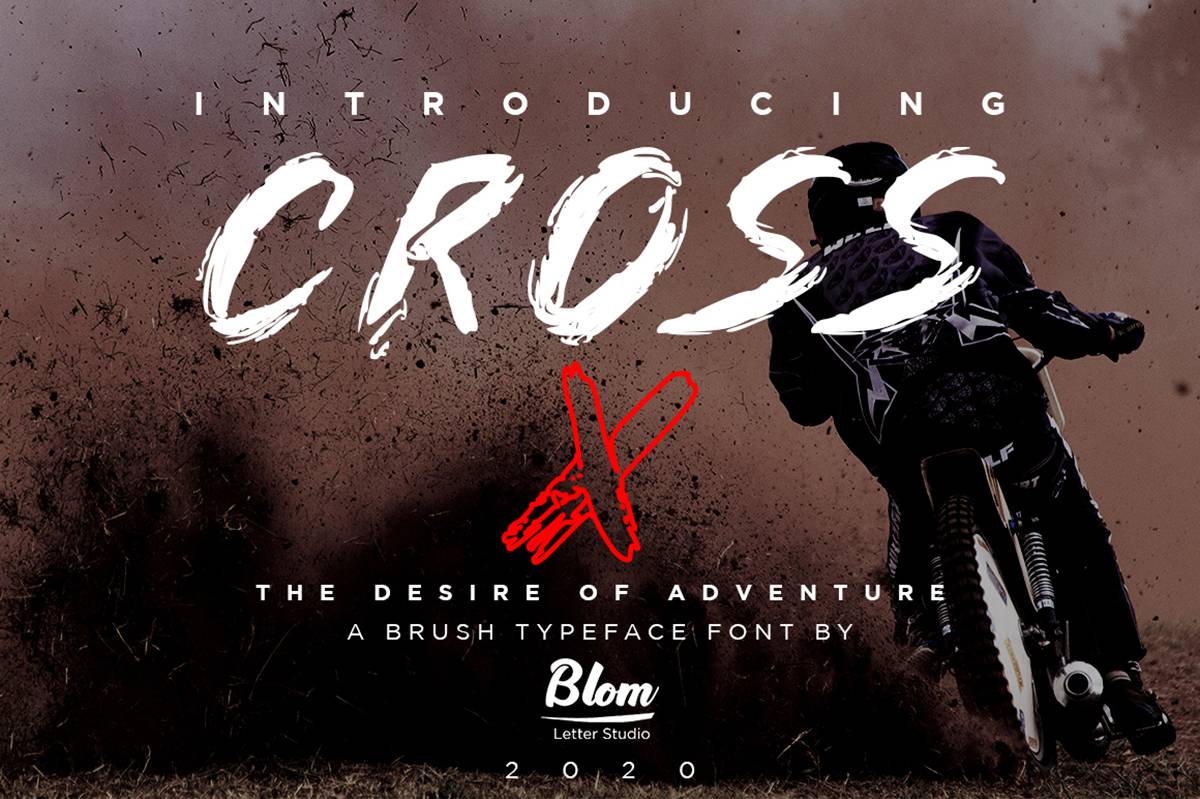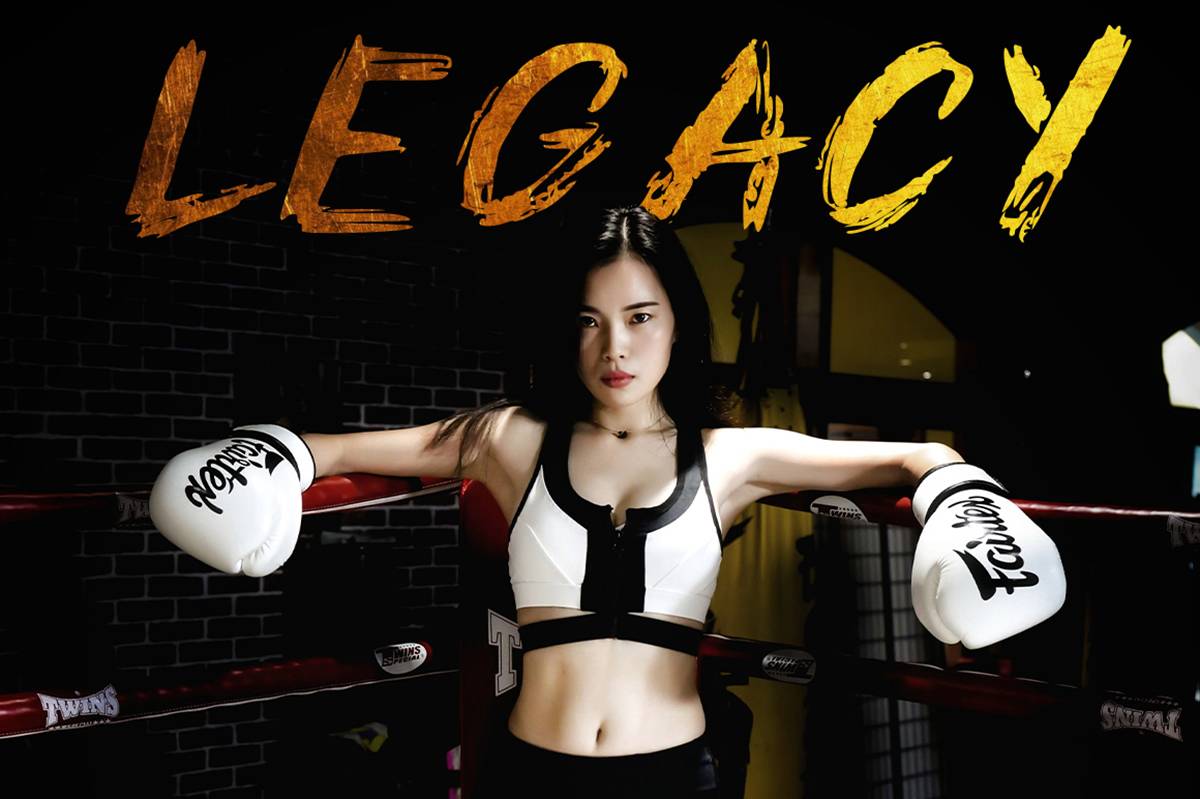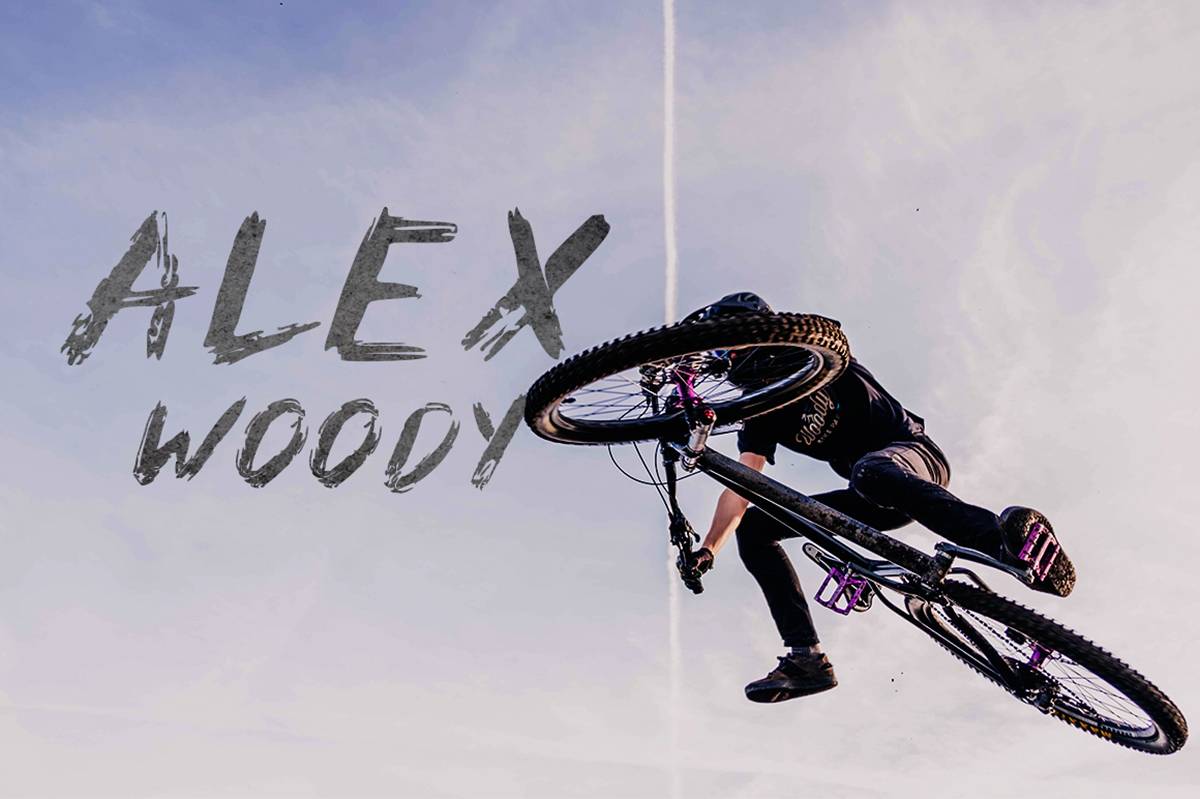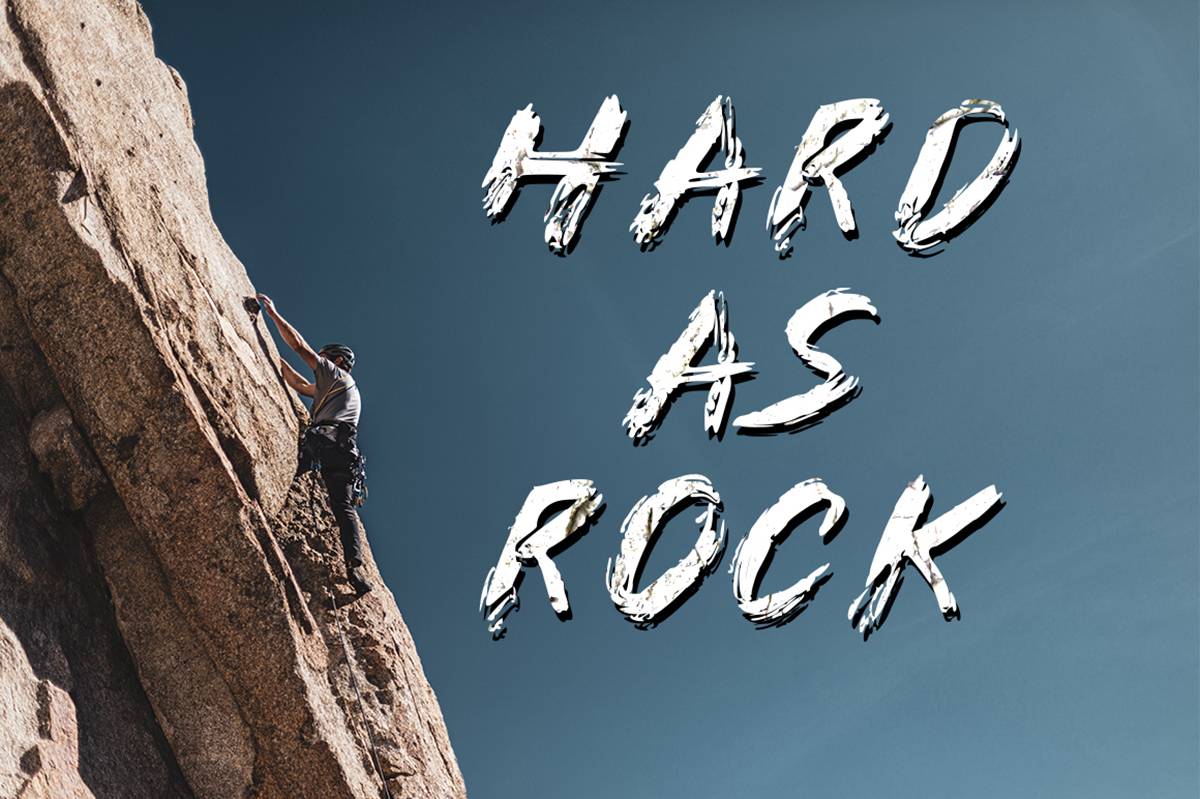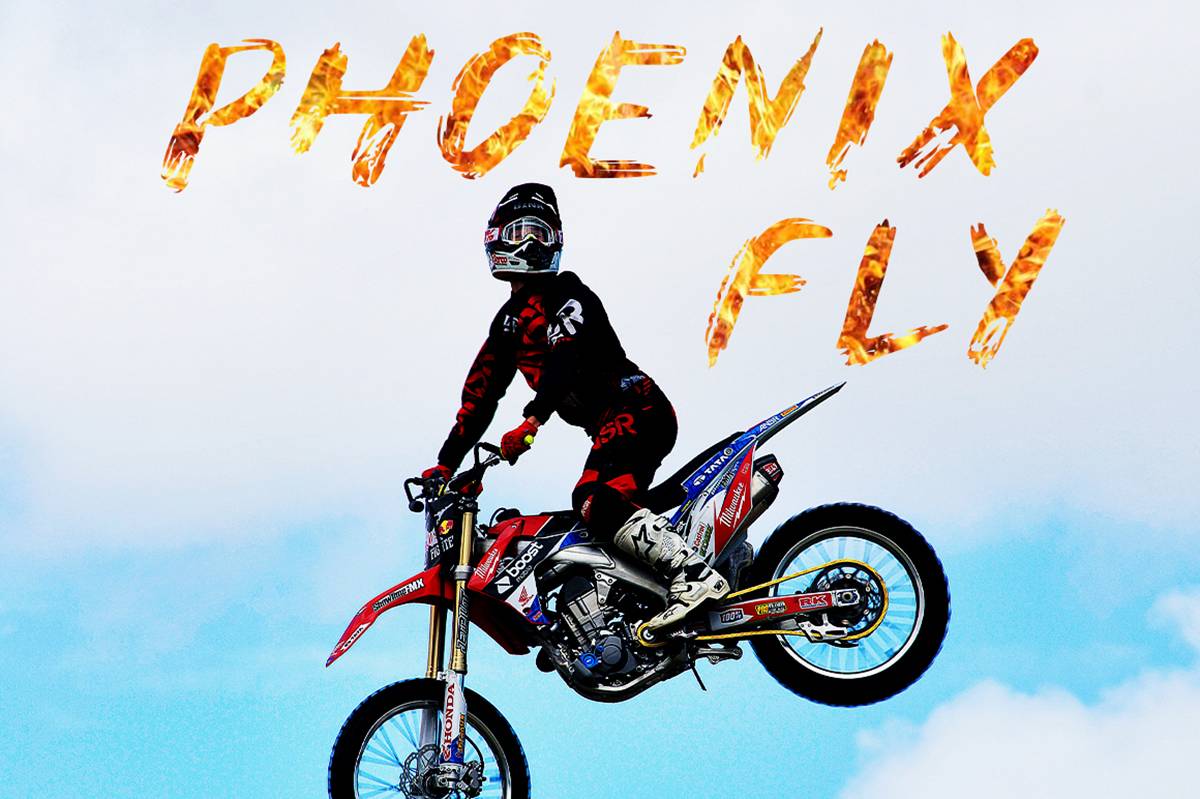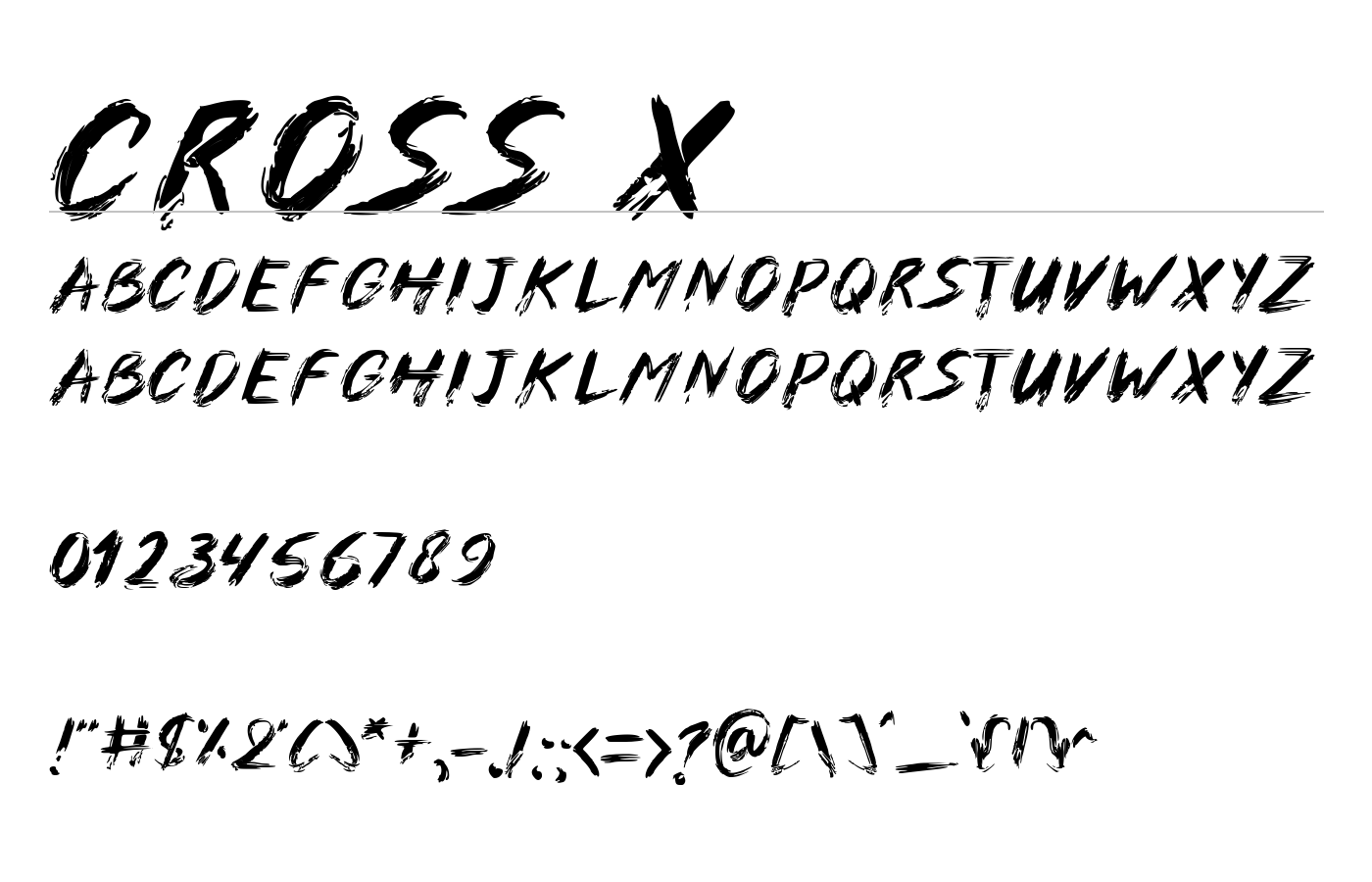
Cross X is a bold and expressive brush script font that brings energy and a handcrafted feel to any design. Its rough, textured strokes and slightly slanted letterforms create a dynamic, informal style perfect for eye-catching headlines, logos, and creative projects that need a lively, artistic touch. This font works well for brands seeking a vibrant, youthful vibe or designs that want to stand out with personality and movement.
Cross X Font
About Cross X Font
| Font family | Cross X Font |